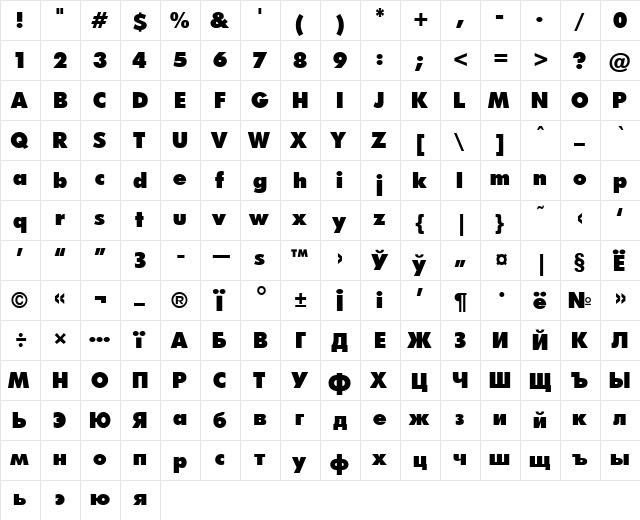
Futura press Press
Design Context for Futura press Typeface
Futura press channels digital-age aesthetics through its sharp, structured letterforms — ideal for brands that want to signal innovation.
Pro Tip: Try Futura press with generous letter-spacing in UI labels and navigation — the geometric forms benefit from room to breathe.